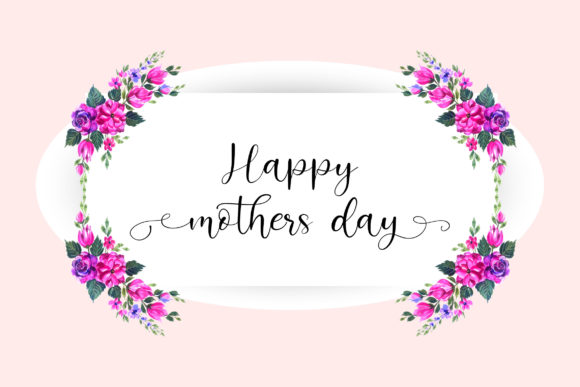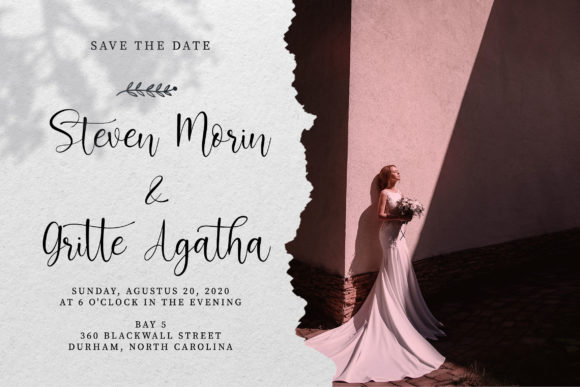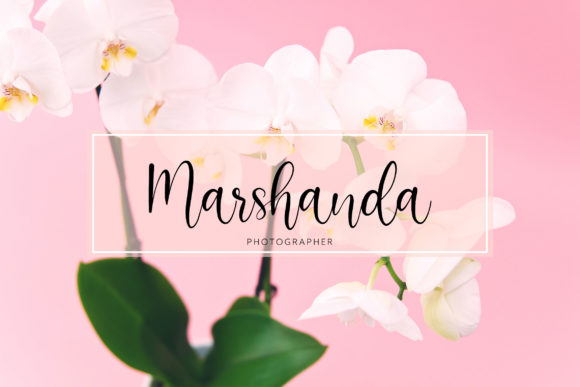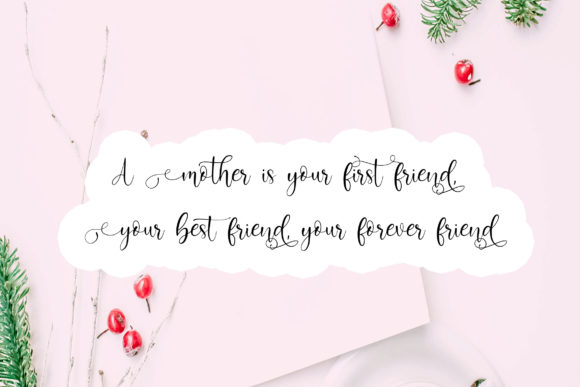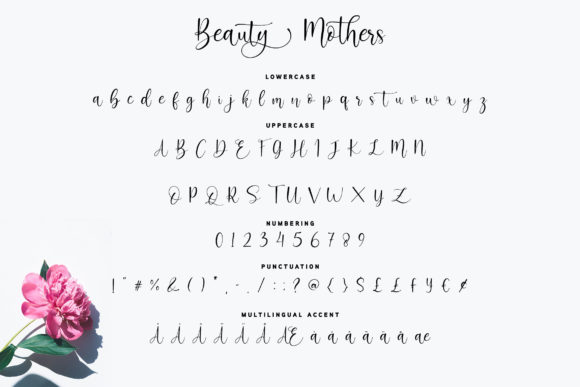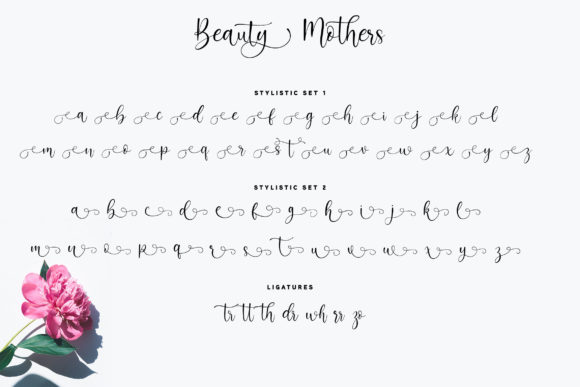
Beauty Mothers Font
About Beauty Mothers Font
Beauty Mothers is a magical font, whose rounded characters will allow you to add a decorative touch within seconds! Get inspired by Beauty Mothers and create stunning designs, wedding invitations, birthday cards, greeting cards, and much more!
This font is PUA encoded which means you can access all of the glyphs and swashes with ease! It also features a wealth of special features including alternate glyphs and ligatures.